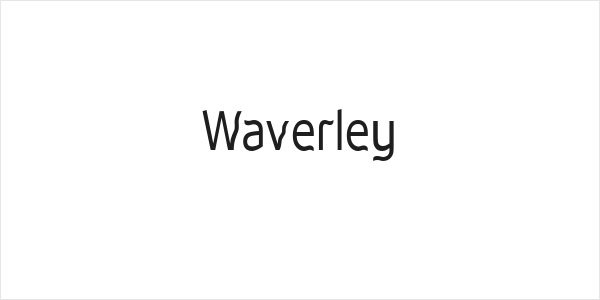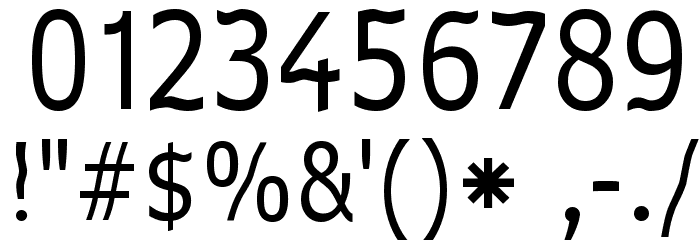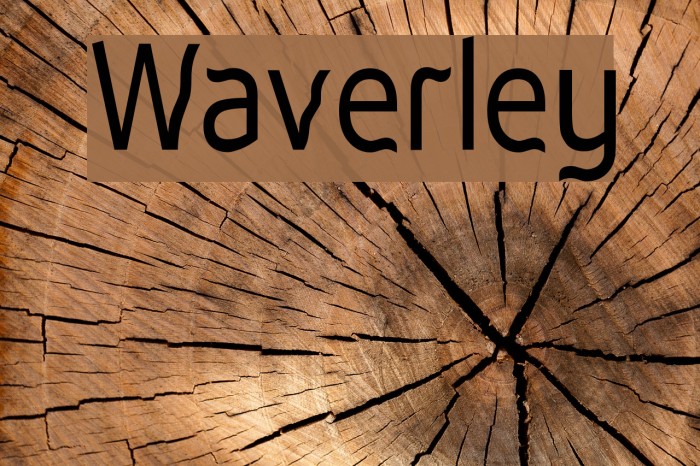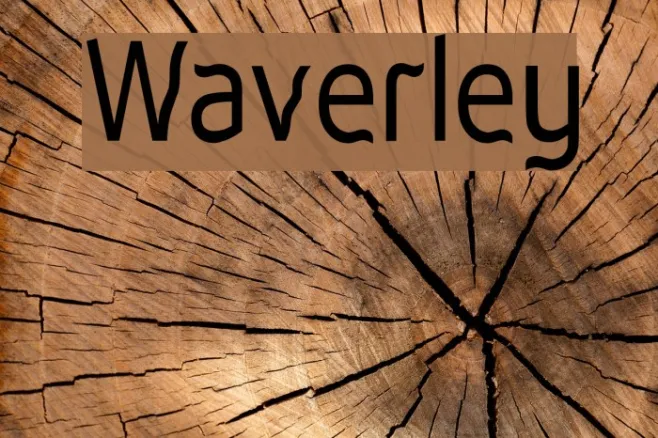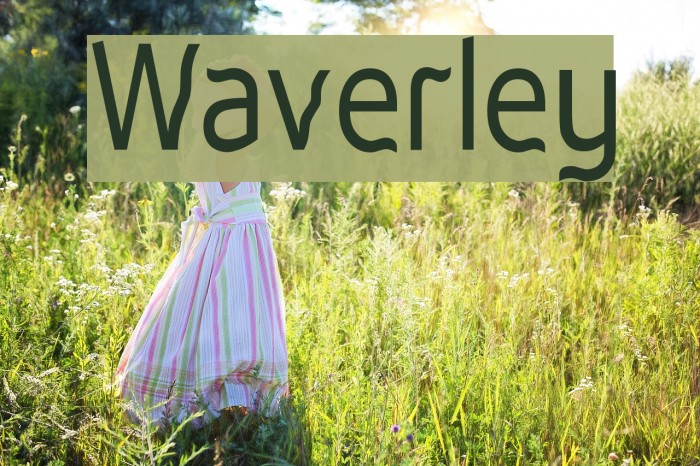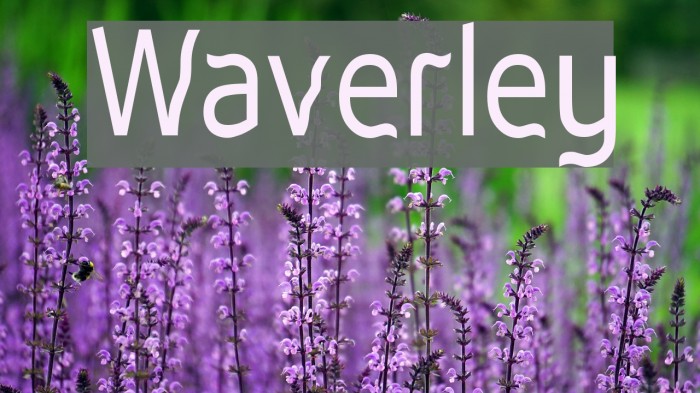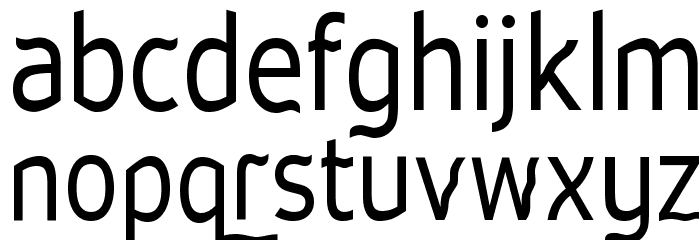
Waverley Font
Waverley Description
This font features a modern and clean design with a slightly playful touch. The characters are well-balanced, with a consistent stroke width that gives it a uniform appearance. The uppercase letters are bold and commanding, while the lowercase letters maintain a friendly and approachable look. The numerals are clear and easy to read, making them suitable for various applications. Special characters are included, adding versatility to the font. The overall design is sleek and contemporary, making it ideal for modern design projects.